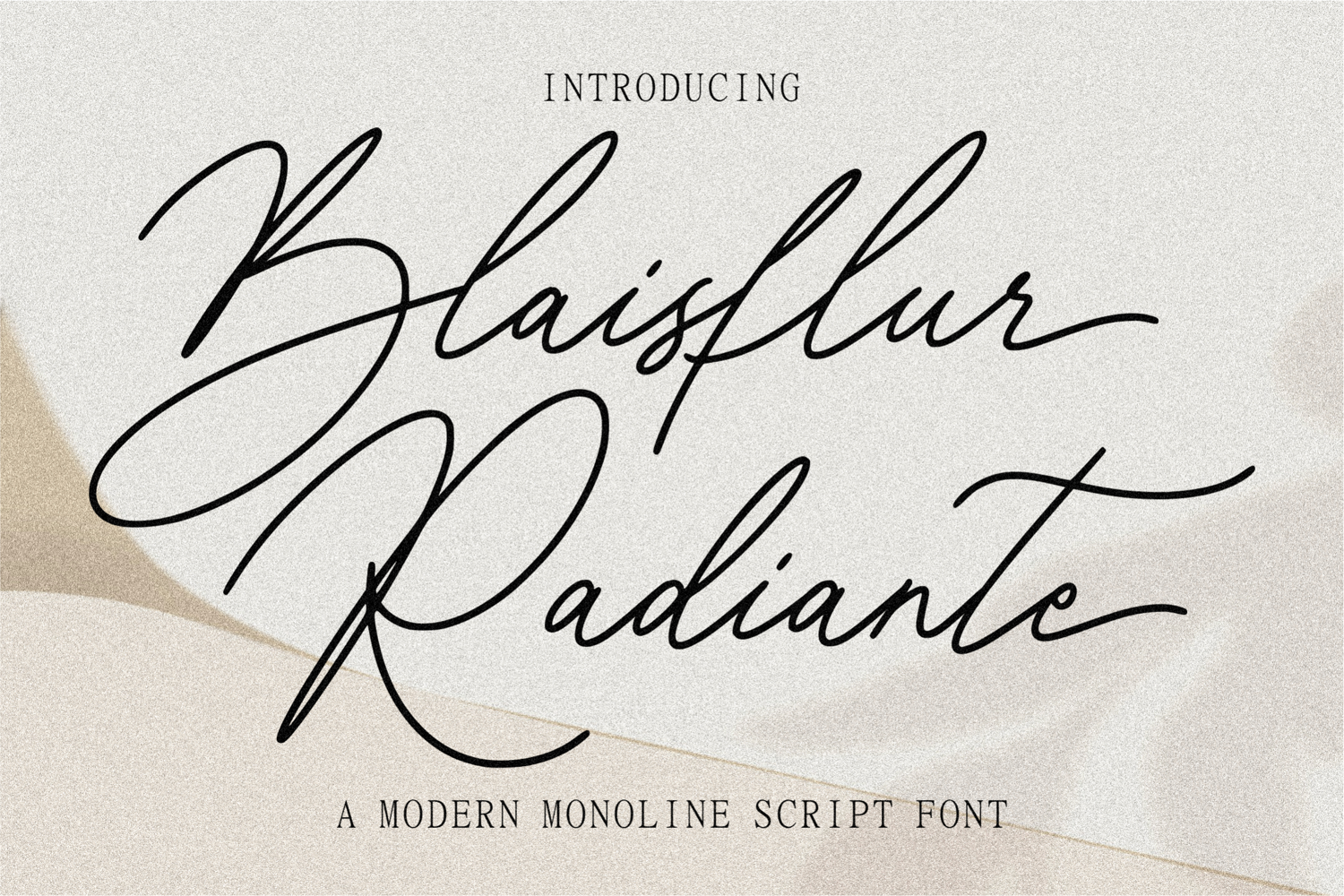
Blaisflur Radiante
Proudly Present, Blaisflur Radiante
Blaisflur Radiante is A Modern Monoline Script Font Perfect for wedding, product packaging, branding project, magazine, social media, or just used to express words above the background on your best project.